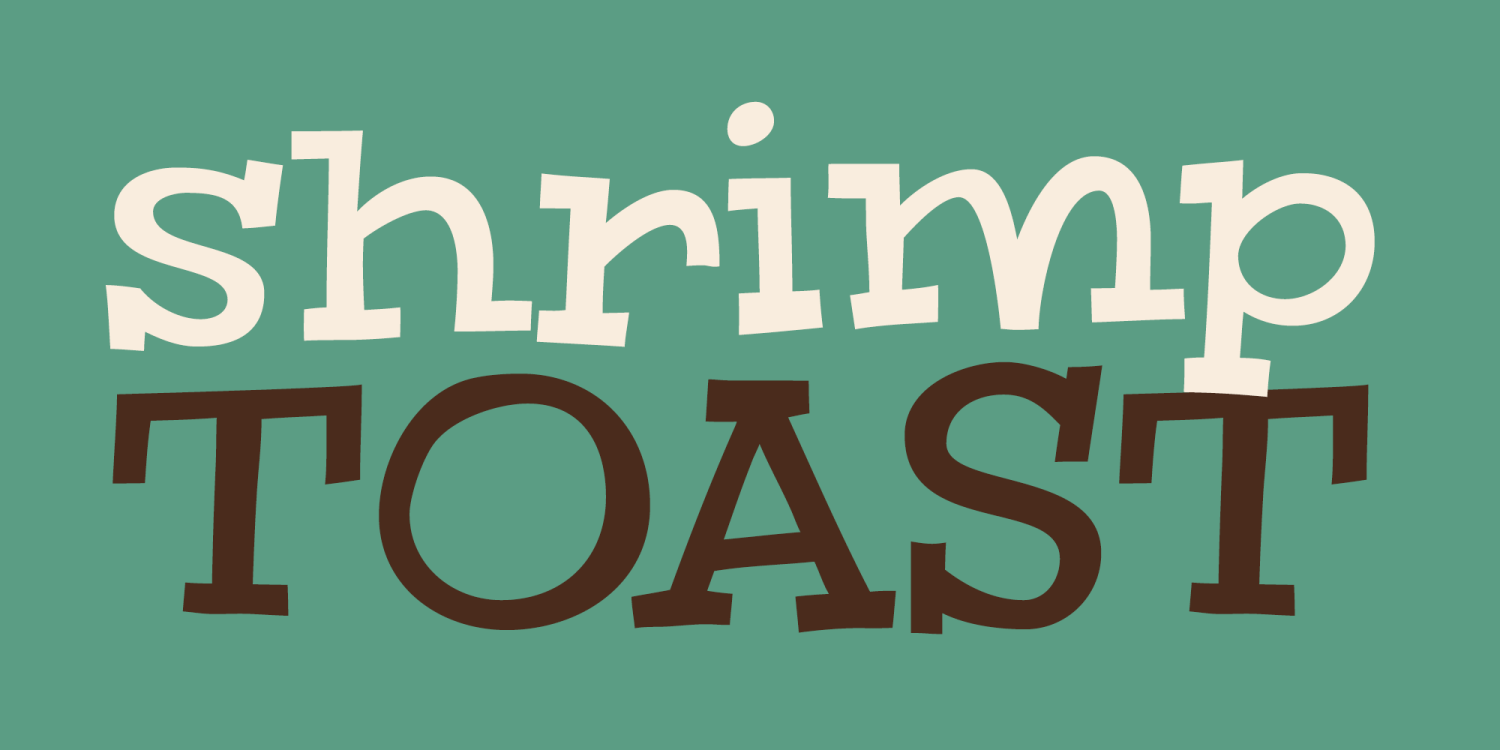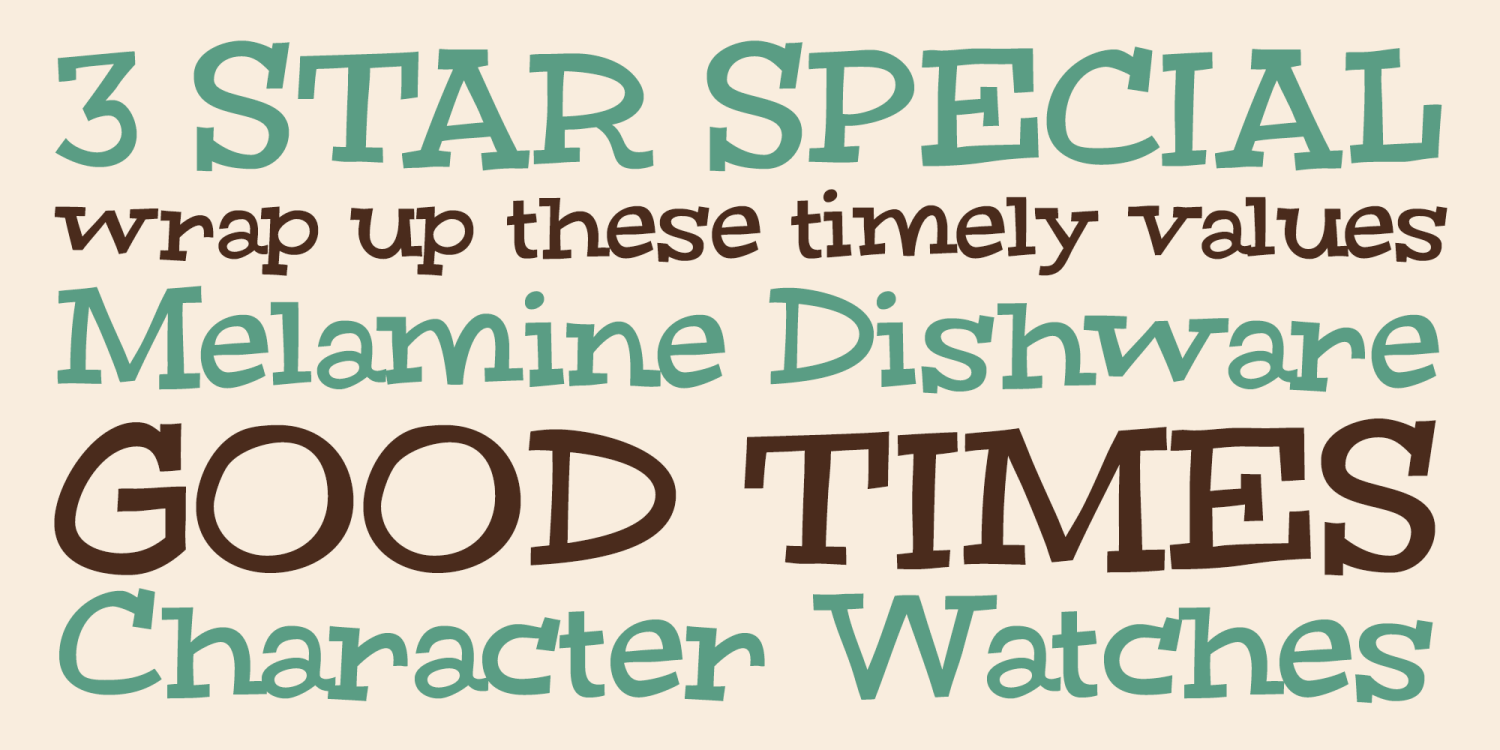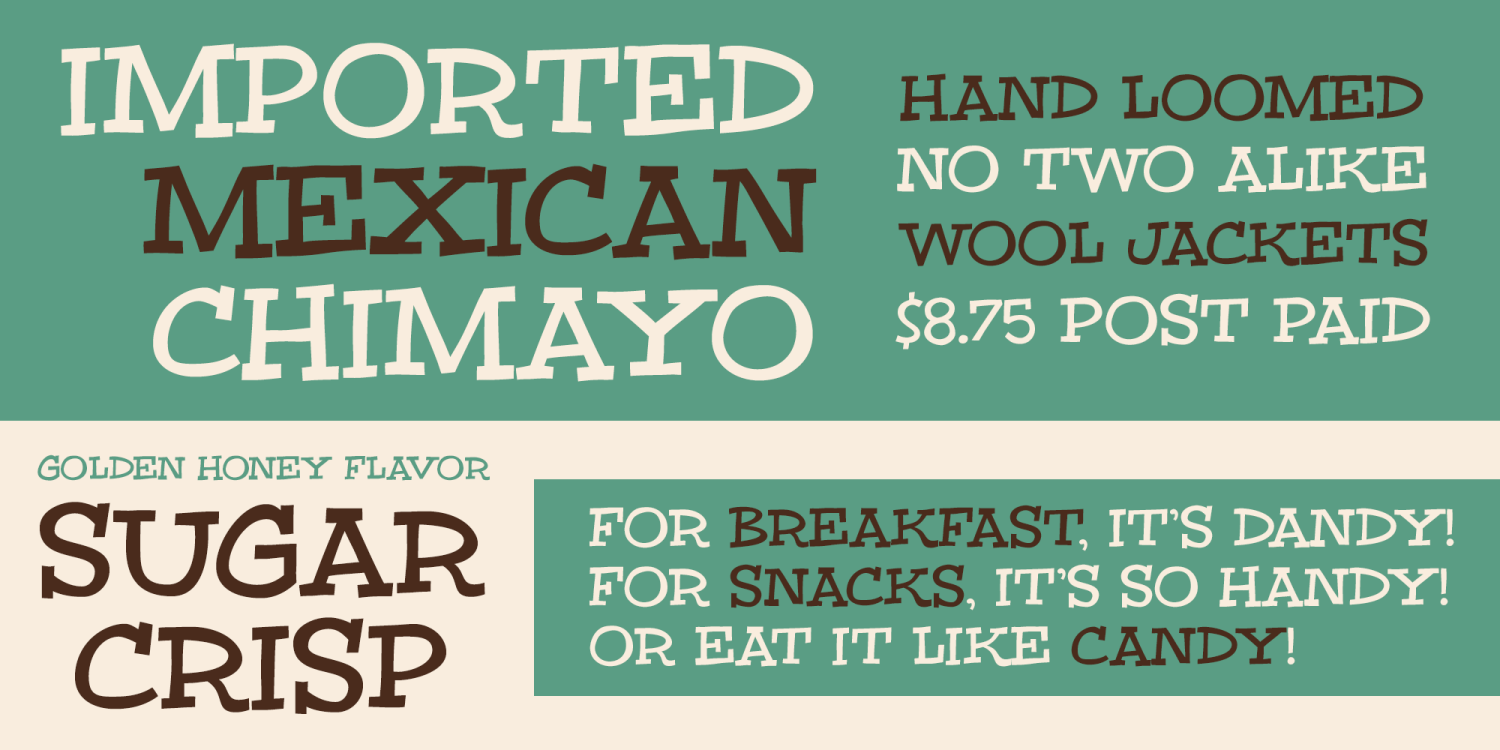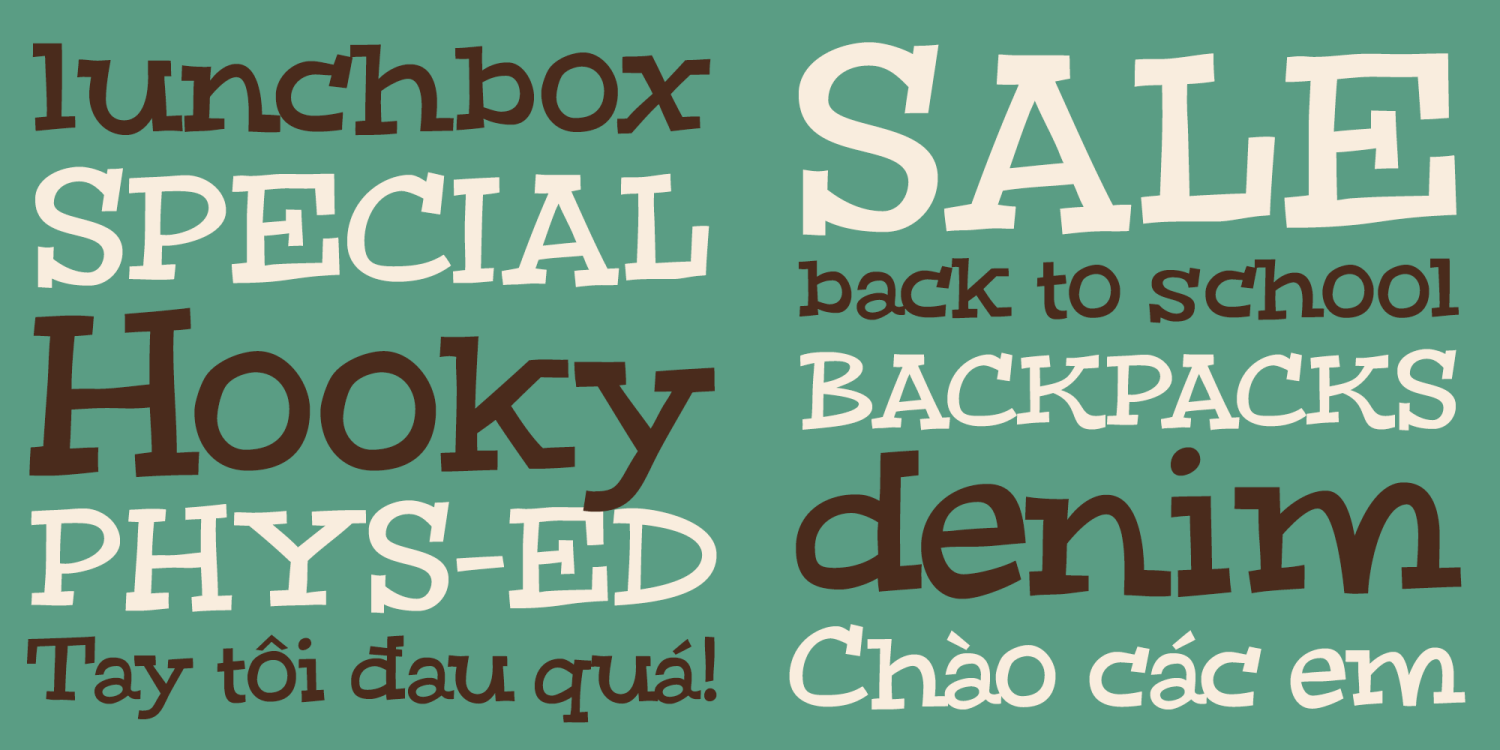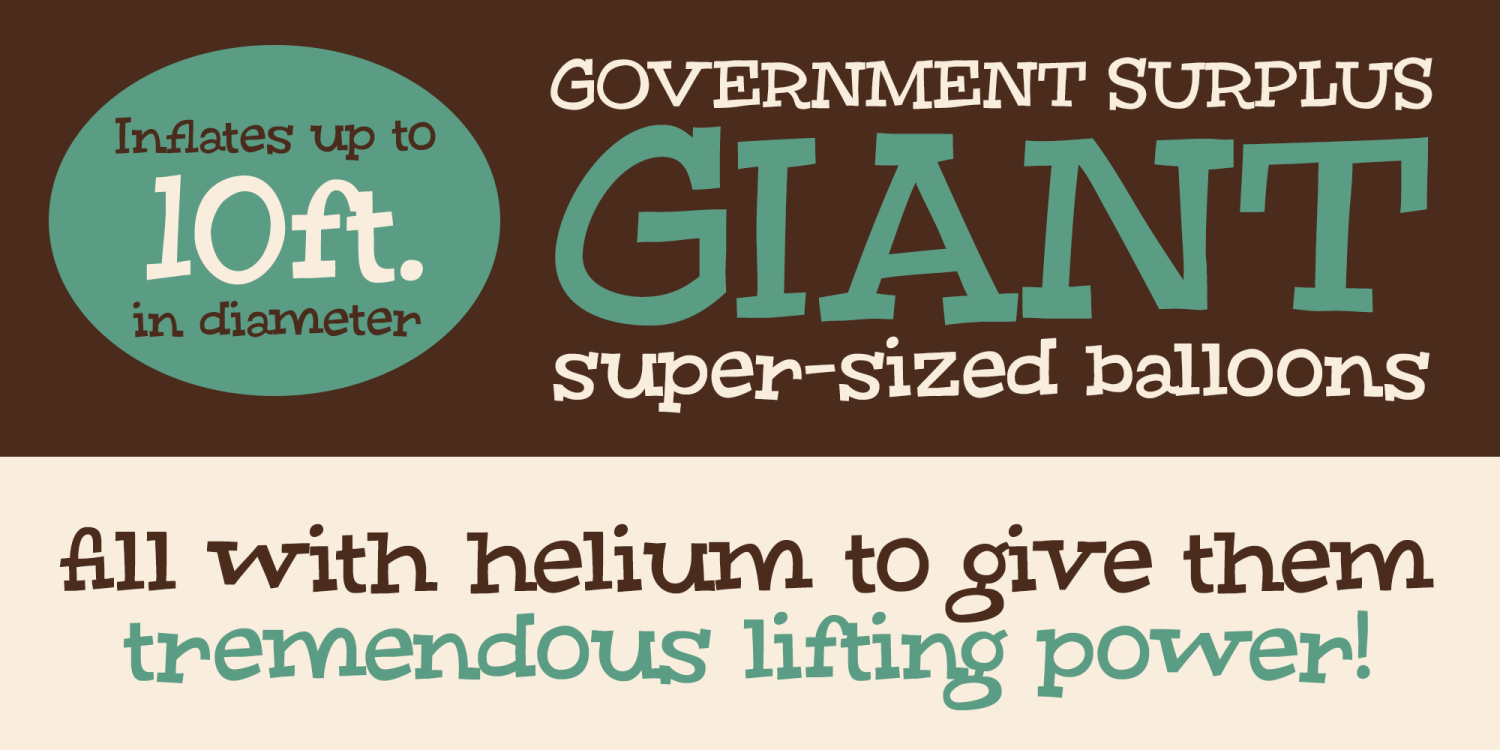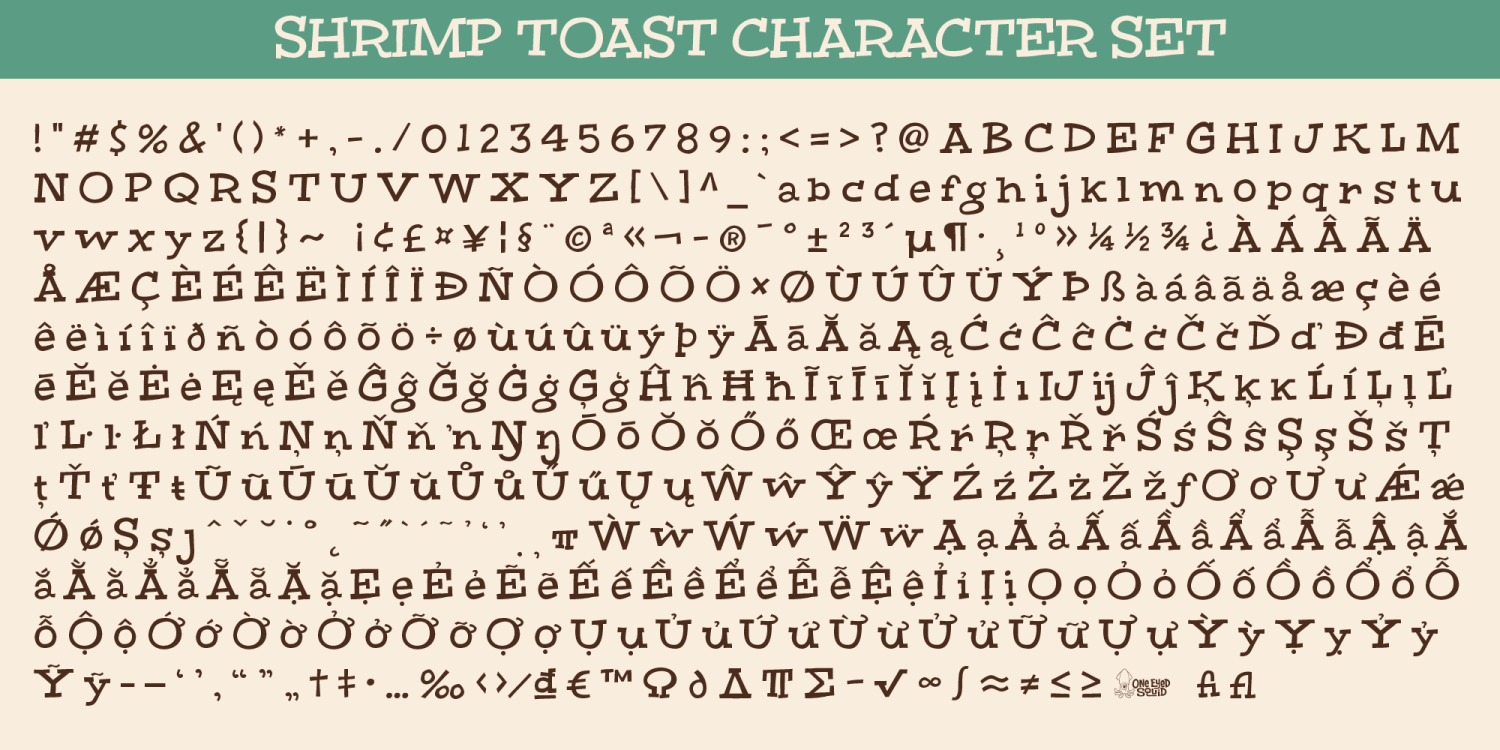
Shrimp Toast
Shrimp Toast is a whimsical display font designed to bring lightness, charm, and playful personality to otherwise ordinary layouts. Its lively letterforms add a cheerful, decorative touch that works especially well for menus, brochures, editorial projects, packaging, posters, and other designs that need a brighter, more engaging typographic voice. Fun, quirky, and full of character, Shrimp Toast is a strong choice for creative work that benefits from an offbeat yet approachable style. Includes extended Latin language support, including Vietnamese.
Shrimp Toast includes 482 glyphs.